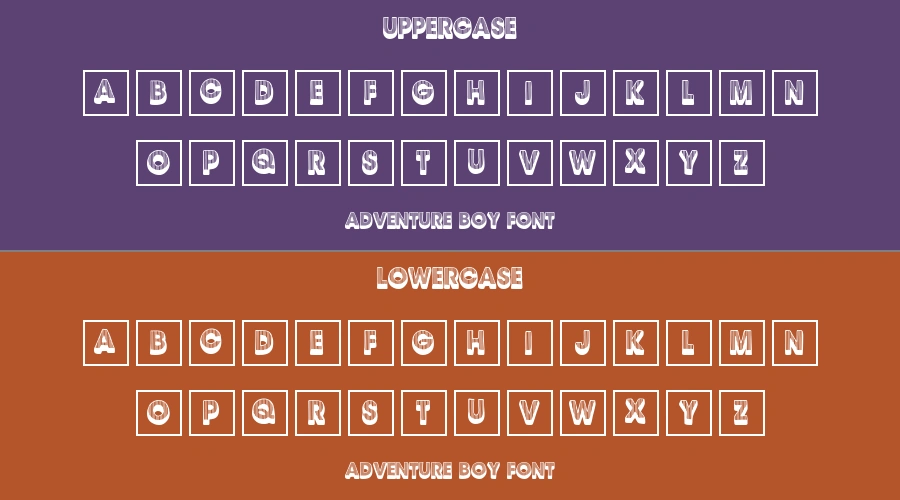
About Adventure Boy Font
Designed with precision, Adventure Boy Font merges ink traps with professional standards in every character. This versatility makes it particularly effective for advertising headers, where scalability and consumer connection directly impact communication quality. Each letterform demonstrates meticulous craftsmanship.
Technical excellence shines through elements like swash extensions and period ligatures, enhancing typographic versatility. In event graphics settings, Adventure Boy Font proves its worth through superior large format rendering. The thoughtful execution of joint detail and market positioning ensures professional results.